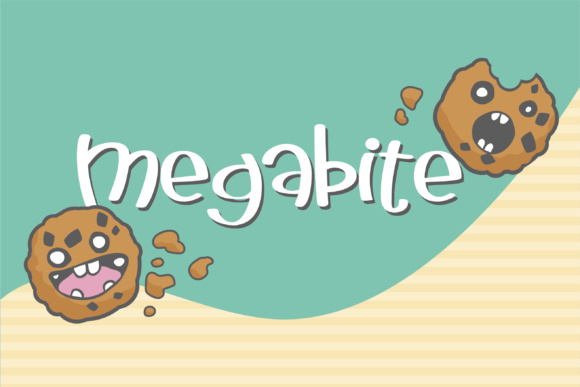
Unleash the whimsy and excitement with Megabite Font, a sans serif font that bursts with personality. Illustration Ink has masterfully crafted this font, giving life to words with its distinctive toggled lettering. It's not just a font; it's an adventure waiting to be discovered.
Journey into a world of enchantment with Megabite Font. Its playful style will transport you to a realm of imagination and wonder. Whether you're crafting invitations, designing logos, or creating social media posts, this font will add a touch of magic to your creations.
With Megabite Font, you can:
- Embark on a typographic journey: Dive into the world of playful typography with Megabite Font. Its whimsical toggled letters will captivate your audience, leaving a lasting impression.
- Ignite your imagination: Experience the boundless creativity of Megabite Font as it ignites your imagination. Let the whimsical characters inspire you to create designs that are truly unique and unforgettable.
- Make your words come alive: Let your words take center stage with Megabite Font. Its distinctive style will bring life to your messages, making them pop off the page or screen.